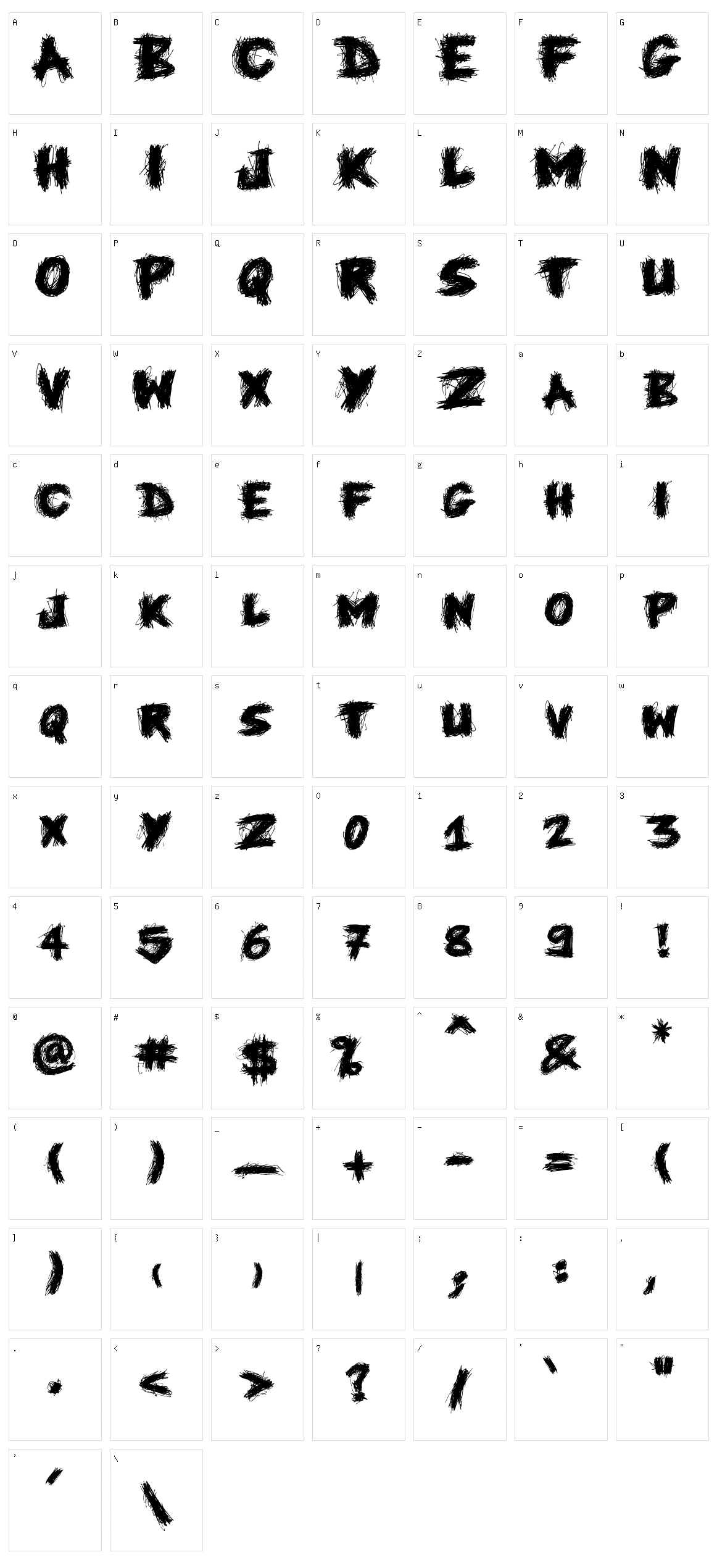
The free font Knife Fight is carefully designed by Damien Gosset, showcasing a thoughtful balance of creativity and usability and falls under the Trash font style. When you download the ZIP file, it contains only 450.4 KB of font files, making it lightweight and quick to download. Please review the license details below to understand permitted usage and distribution rights. If license information is not available, we recommend using this font for personal projects only or contacting the author directly for commercial usage permissions.